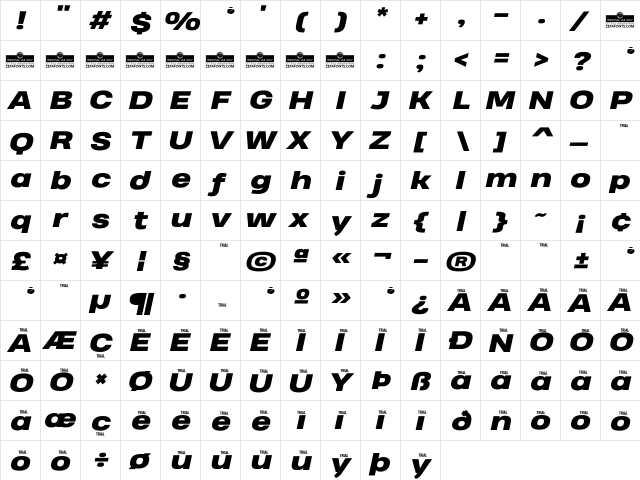
Heading Pro Wide Trial Heavy Italic
| Foundry | Studio Kmzero & Zetafonts |
| Designer | Francesco Canovaro |
Design Context for Heading Pro Wide Trial Typeface
Heading Pro Wide Trial is a composed and adaptable typeface that performs quietly and consistently across a wide range of design contexts. The slanted form adds forward momentum and visual energy.